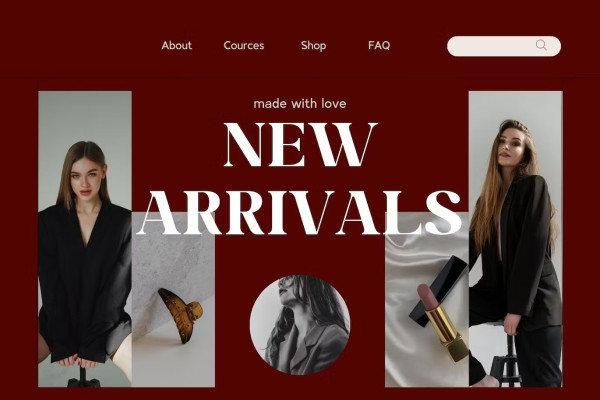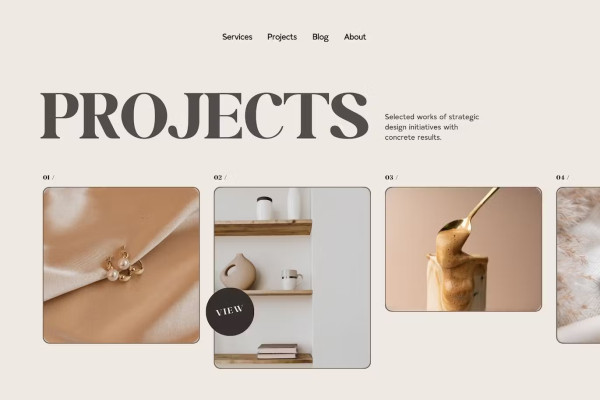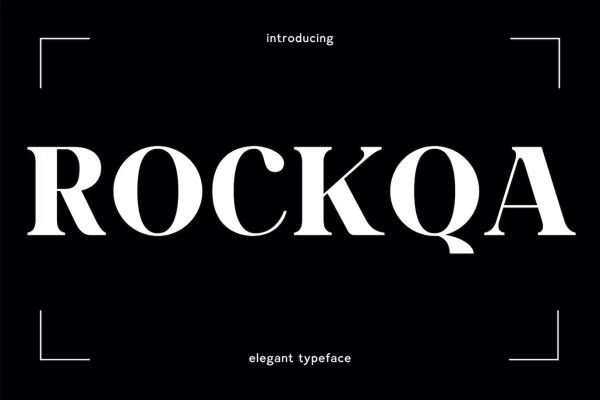
Rockqa Font
Rockqa Font a beautiful series of letters is encapsulated in this ‘Rockqa’ font. Neat lettering is perfect for writing needs that are modern and pleasing to the eye, there is a Modern impression but still looks Elegant when used for writing. Tidiness in the manufacture of each letter, is our top priority. You can have fun and be creative using this font product we made, because the results will definitely be very satisfying.